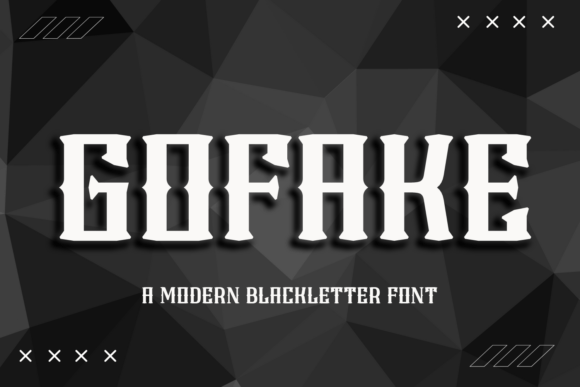
The Ultimate Game-Changer for Designers: Gofake Font
Remember that moment when you stumbled upon the perfect font that instantly elevated your design project? For many creatives, that ‘aha’ moment is what drives their passion for typography. As designers, we’re always on the lookout for that special something that sets our work apart. Enter the Gofake Font, a bold and modern blackletter font that’s about to revolutionize your design game.
This powerful typeface seamlessly blends the Gothic tradition with a contemporary edge, making it the perfect fit for a wide range of applications, from posters and streetwear logos to branding and album covers. With its sharp, angular forms and strong presence, the Gofake Font delivers intensity and style that’s guaranteed to make your projects stand out. Whether you’re a seasoned designer or just starting out, this font is a valuable addition to your toolkit, offering endless possibilities for creative expression.
Gofake Font Key Features
- Unique Characteristics: Gofake Font features a unique blend of futuristic and minimalist elements, with a focus on clean lines, geometric shapes, and subtle texture.
Gofake Font Review
Overall, I have mixed feelings about the “Gofake Font”. While it’s not a bad font, it’s definitely not the best I’ve worked with. Here’s what I like and dislike about it:
- Unique aesthetic: The Gofake Font has a quirky, playful vibe that can be perfect for creative projects or websites that want to stand out.
- Wide character set: The font includes a wide range of characters, including international characters and symbols.
- Legibility issues: At smaller font sizes, the Gofake Font can be difficult to read, especially for long blocks of text.
- Limited customization options: While the font is unique, it’s not particularly customizable, which can limit its versatility.
- Not suitable for formal projects: The Gofake Font is best suited for creative or playful projects; it’s not a good choice for formal documents or websites.
Overall, I think the Gofake Font is a decent choice for designers who want to add a bit of whimsy to their projects. However, it’s not a go-to font for me, and I would recommend it for specific use cases rather than general use.
The Gofake Font is ideal for:
- Creating humorous or satirical content.
- Adding a touch of whimsy to designs.
- Creating mock-ups or fake documents.
Tips for Getting the Most Out of Gofake Font
For the best results, use Gofake Font in conjunction with other design elements to create a cohesive look. Experiment with different font styles and sizes to find the perfect balance for your